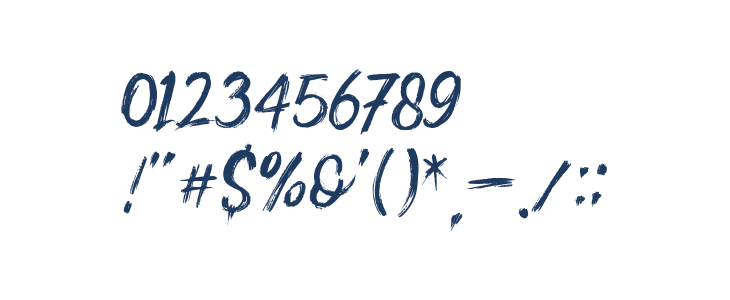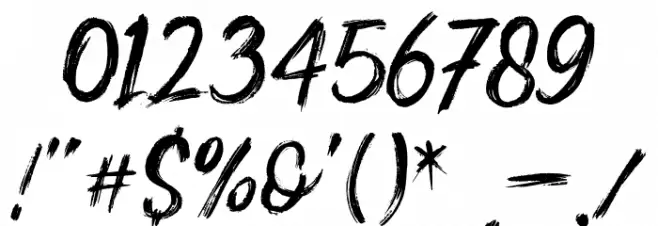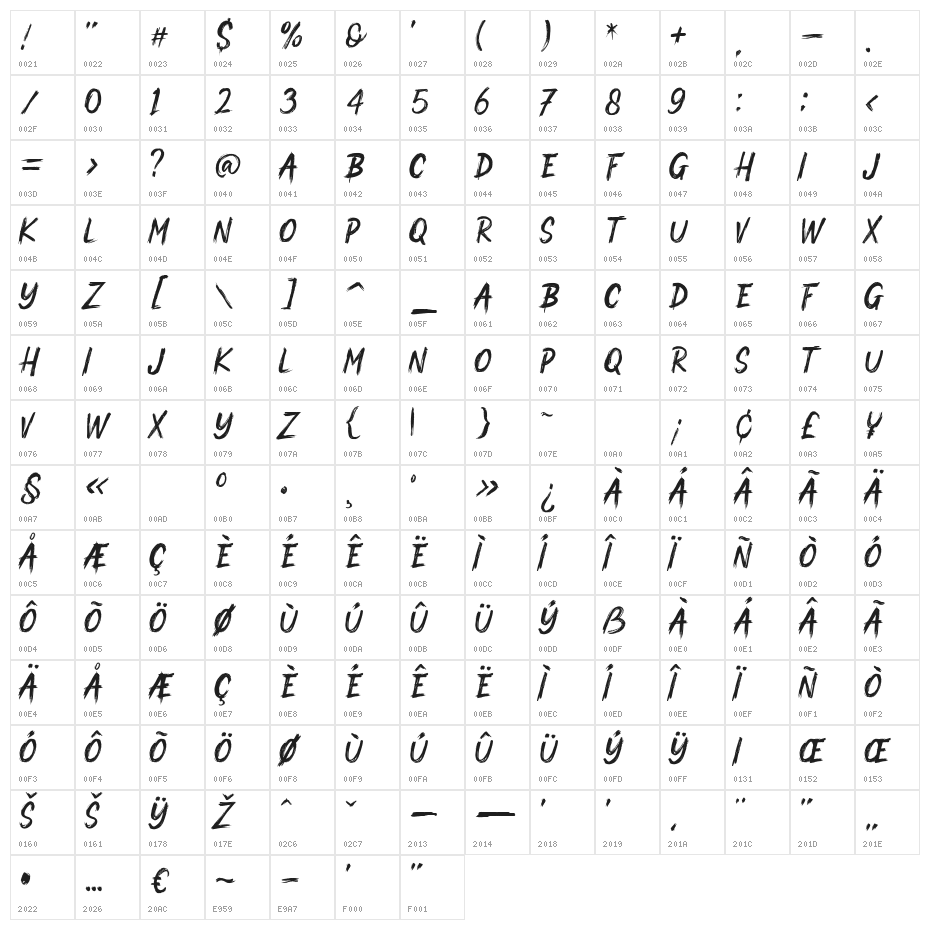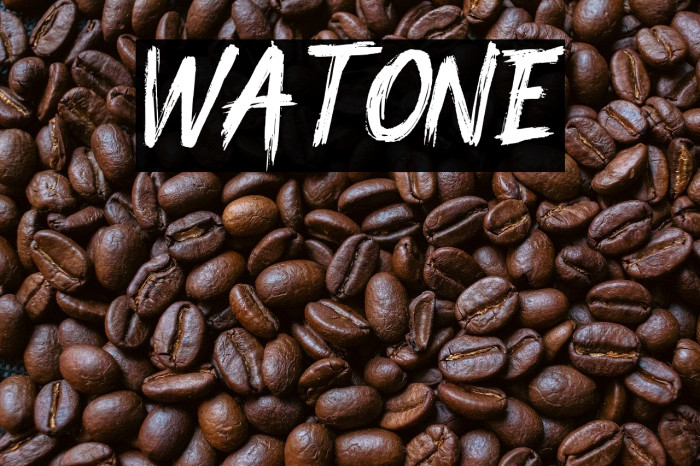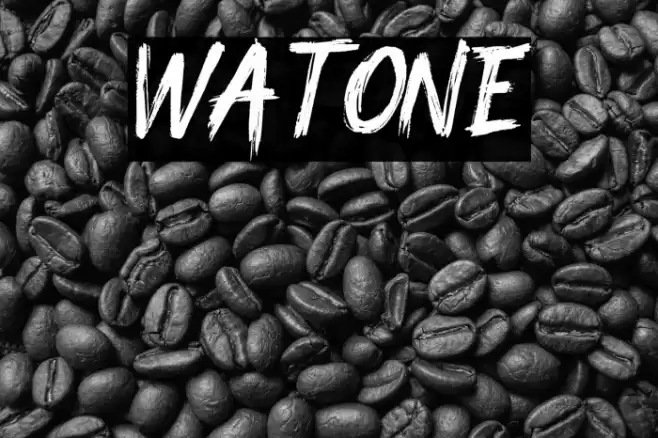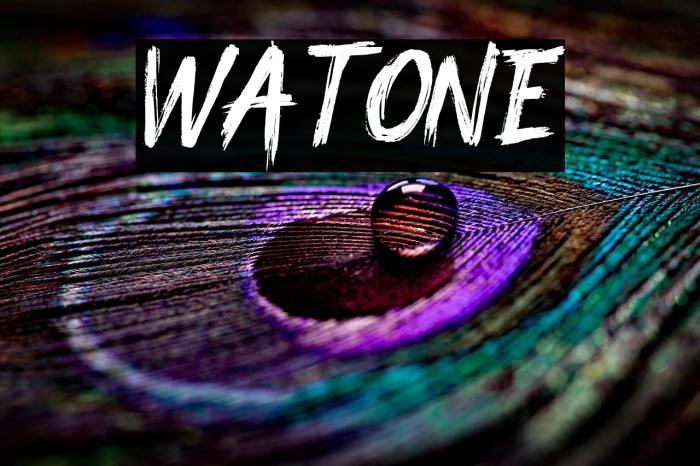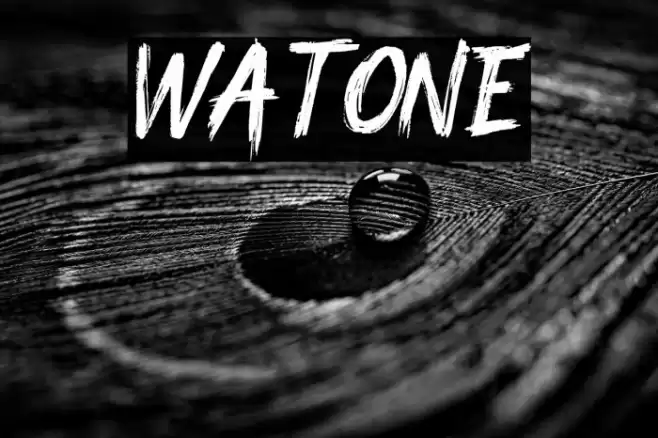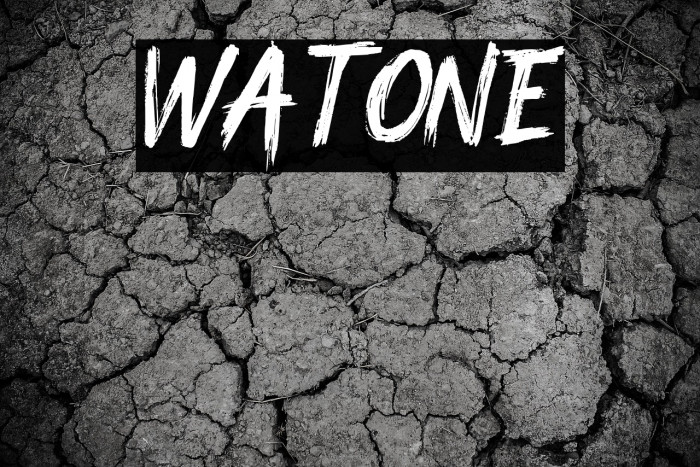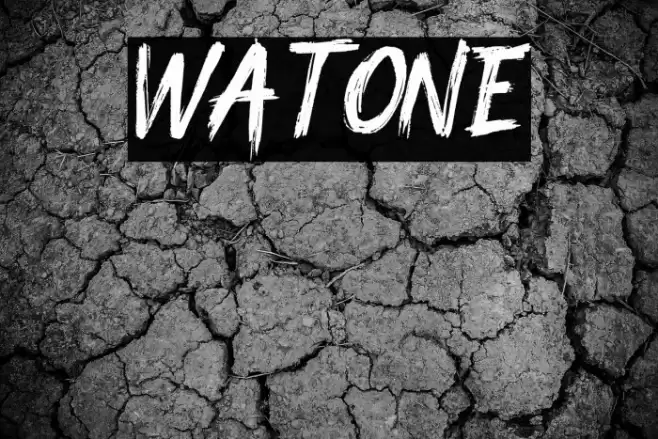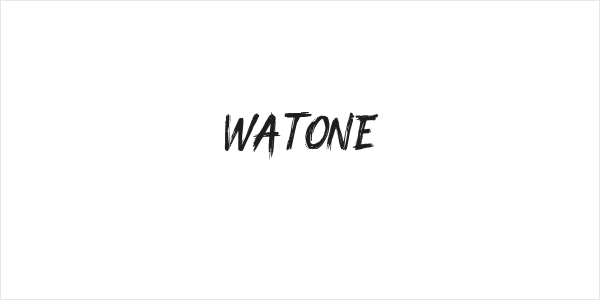
Watone Font
Watone Description
This font features a bold and dynamic brushstroke style, giving it an energetic and expressive appearance. The letters are crafted with a sense of movement and fluidity, resembling hand-painted strokes with varying thickness. The uppercase and lowercase characters maintain a consistent style, with a slightly irregular and artistic edge that adds to its charm. Numbers and special characters are equally expressive, making the font versatile for creative projects. The overall design is both modern and artistic, suitable for making a strong visual impact.